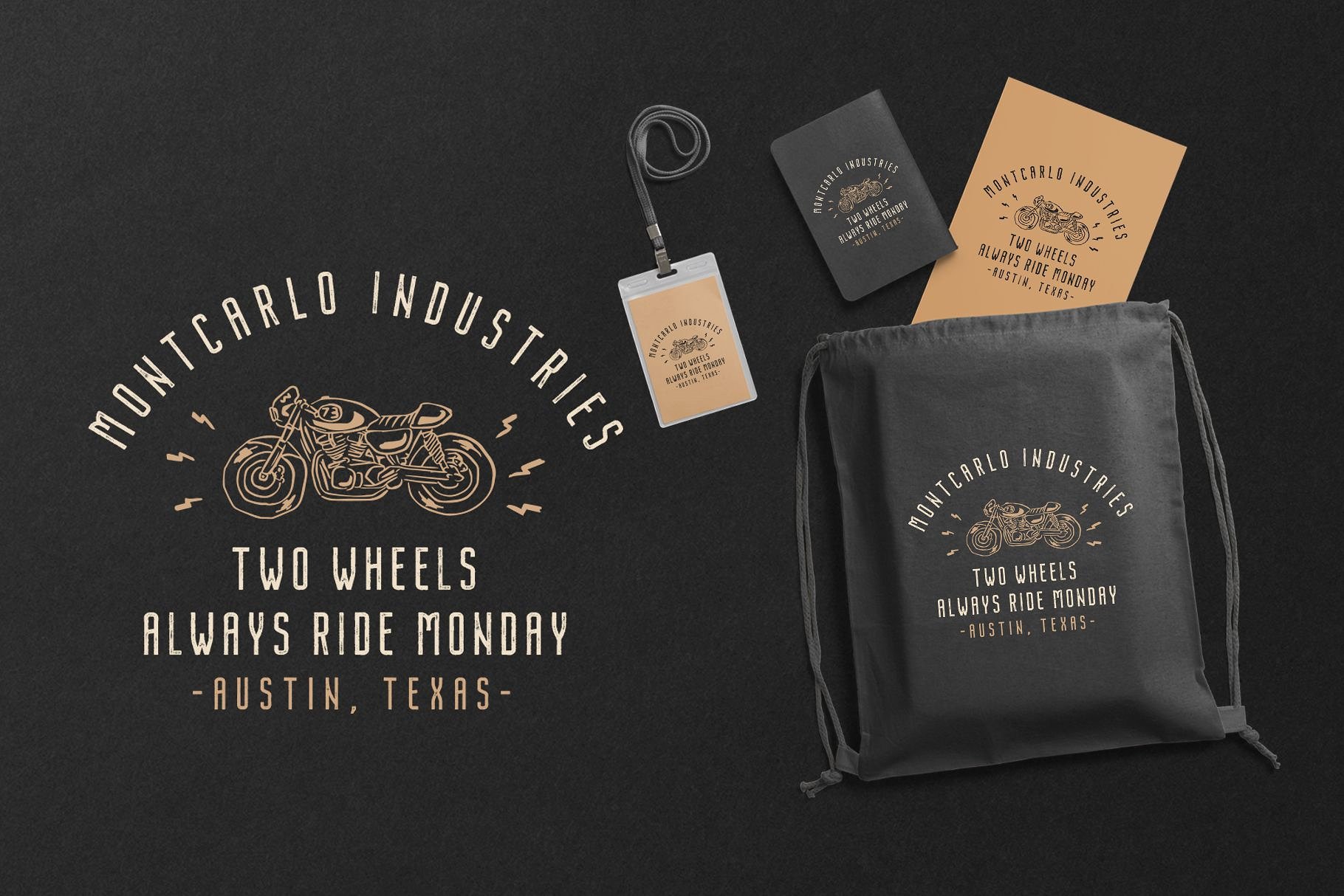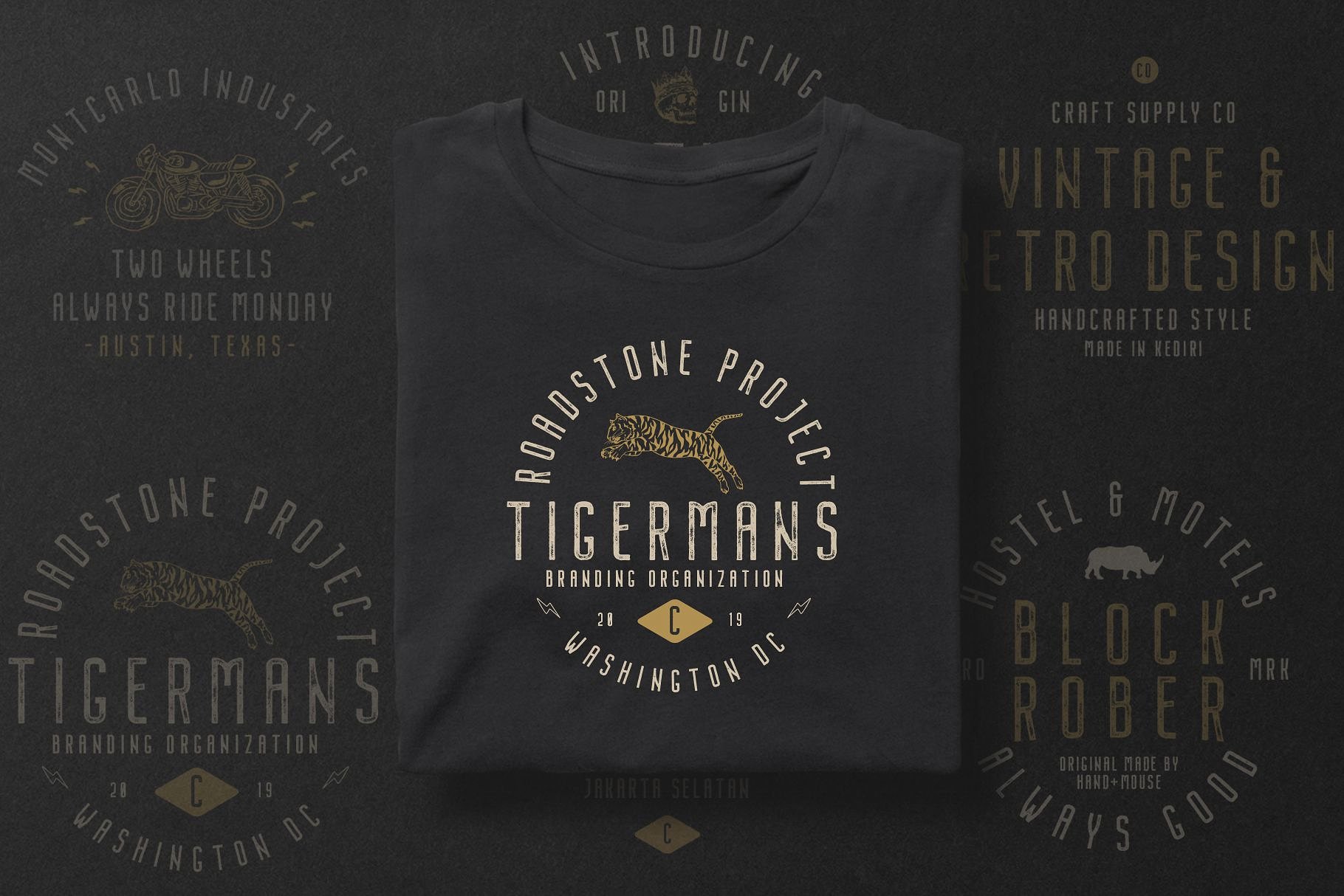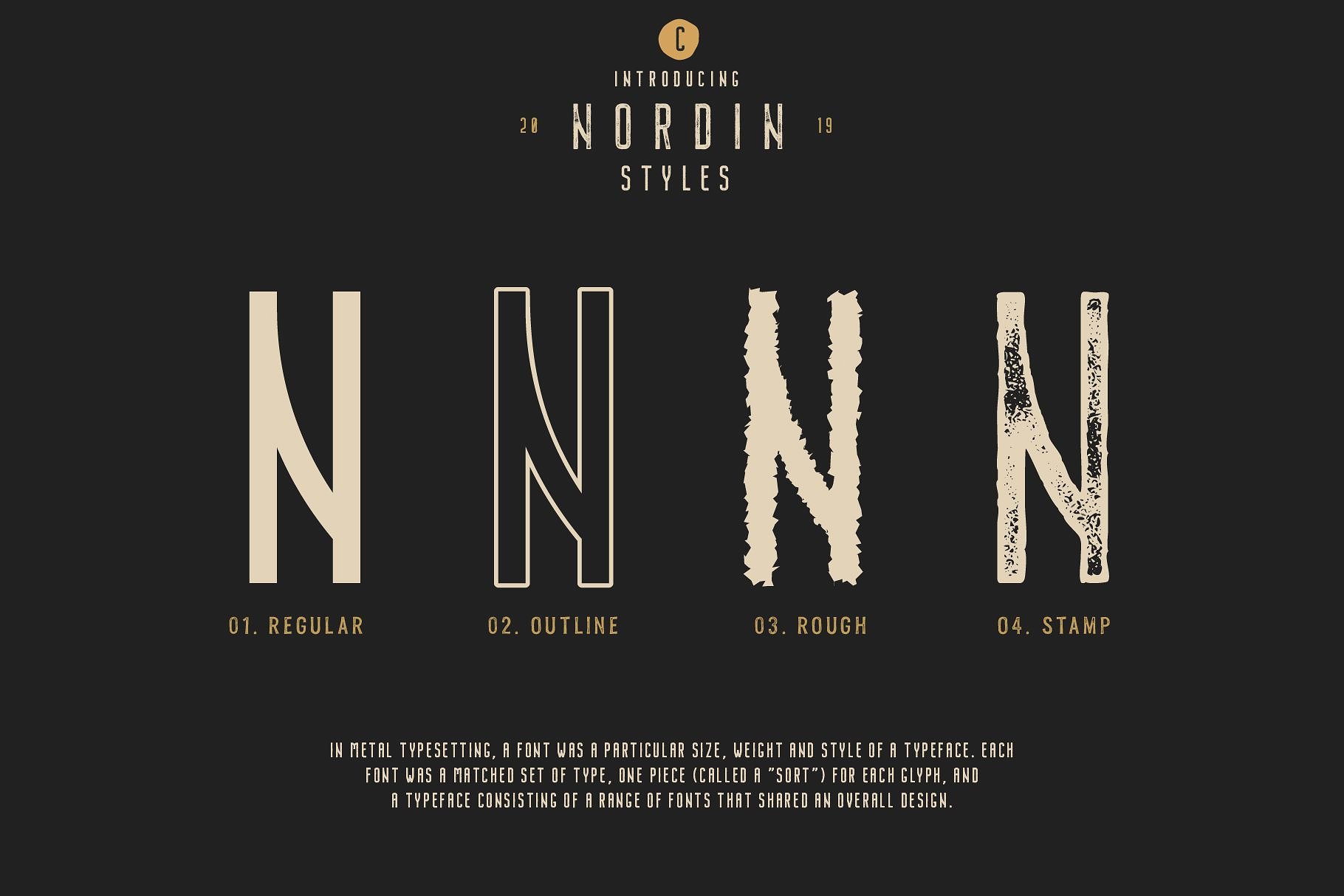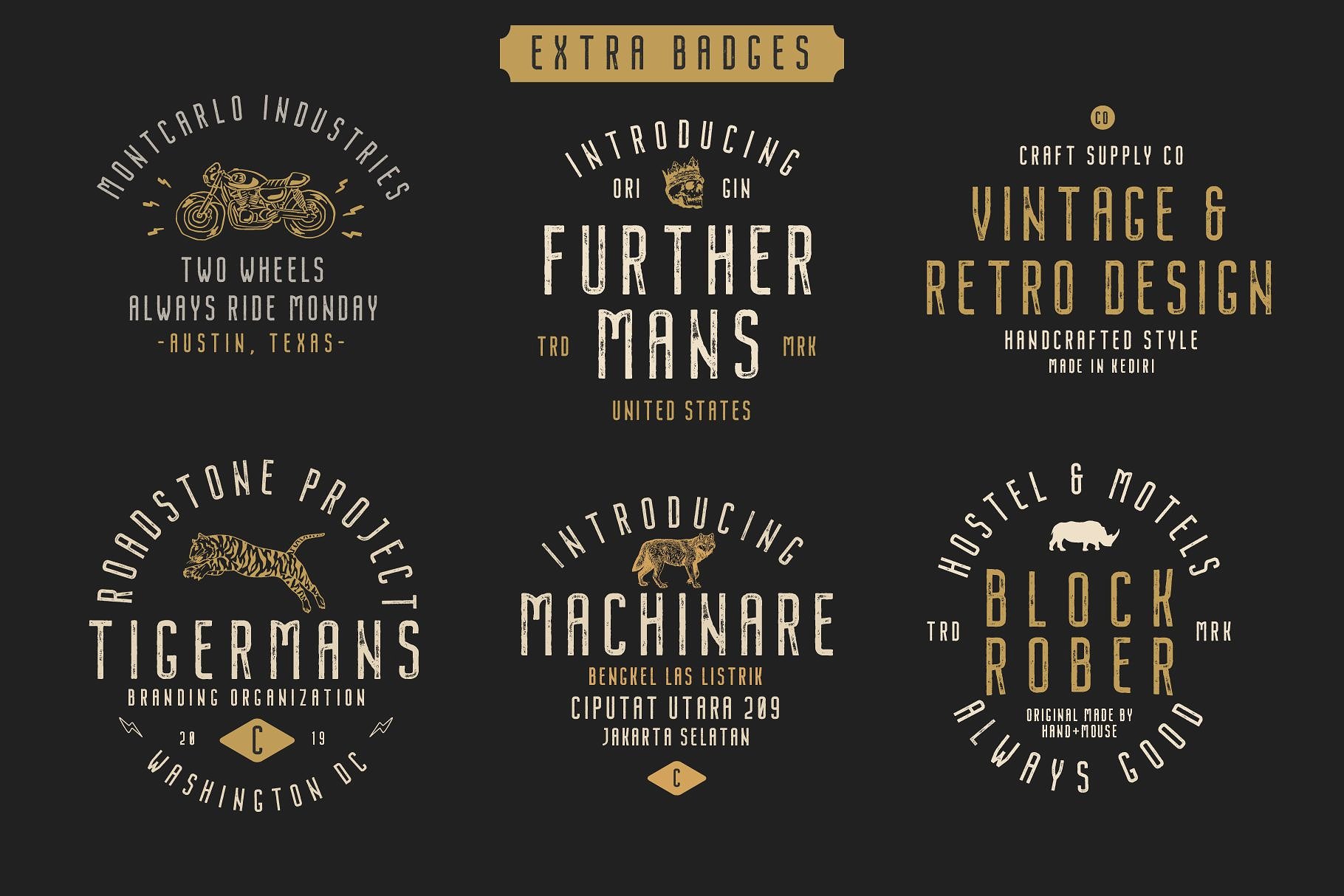
Nordin Vintage Font Family
Hello guys. A new vintage sans serif font family. Introducing Nordin Font Family. Nordin Vintage Font Family includes 4 Style Fonts. It can be used to create almost all types of design projects like print materials. Just use your imagination and some graphic design set in Extras, your project will become more alive and look great than ever with one of the Nordin Font Family.
You want to make a greeting card or a package design, or even a brand identity, craft design, any DIY project, book title, wedding font, pop vintage design, retro design or any purpose to make your art / design project look pretty and trendy? Feel free to play with all the patterns and shape!
Nordin – Condensed Sans Serif also suitable for art, modern envelope lettering or book design, happening style like handdrawn design or watercolor design theme, craft design, any DIY project, book title, wedding font, pop vintage design, or any purpose to make our art/design project look pretty and trendy.